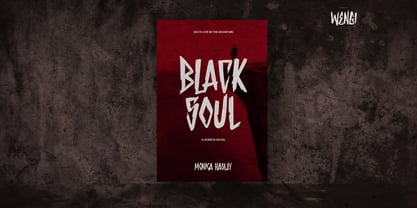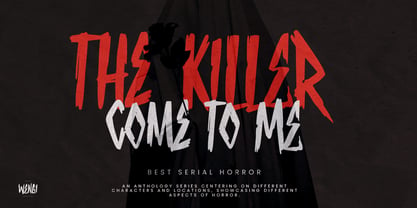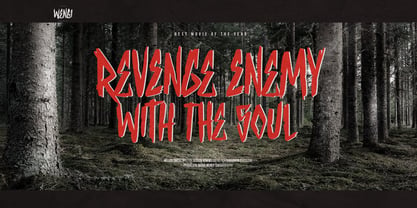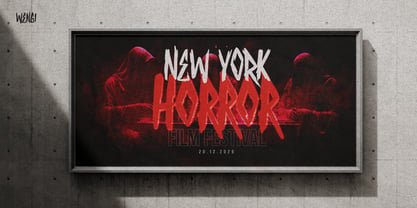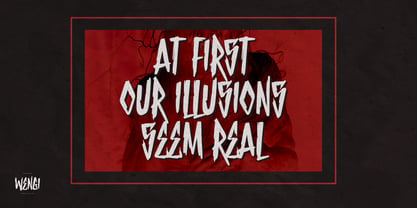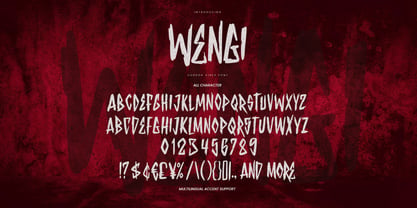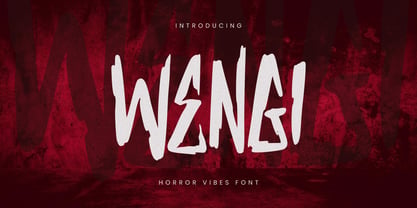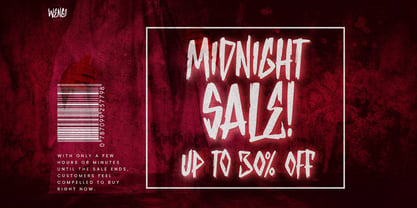
Wengi
von Gassstype
Die Schriftfamilie Wengi wurde von Abdul Malik Wisnu entworfen und von Gassstype veröffentlicht. Wengi enthält 1 Stile. Mehr über diese Familie
Wengi is a bold and unsettling hand-drawn display font inspired by dark atmospheres, horror aesthetics, and raw handmade lettering. Its irregular shapes, rough strokes, and distorted forms create an eerie and expressive personality that instantly grabs attention. Perfect for horror posters, movie titles, album covers, Halloween designs, apparel, logos, book covers, packaging, merchandise, social media graphics, and dark-themed branding. With its creepy yet artistic character, Wengi is designed for projects that require a strong sense of tension, mystery, and underground attitude.
Designer: Abdul Malik Wisnu
Foundry: Gassstype